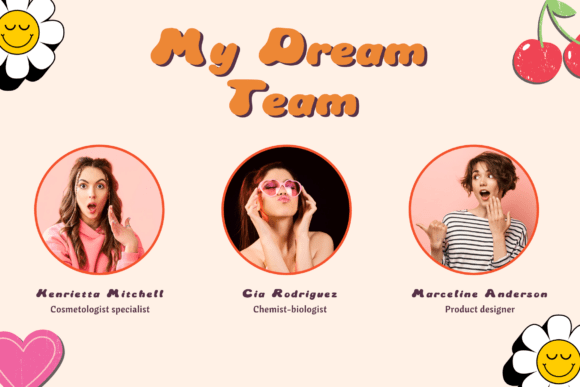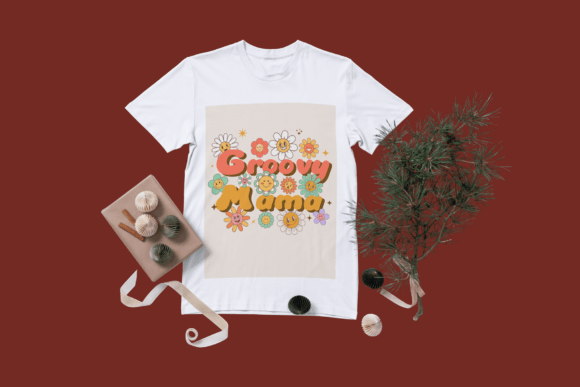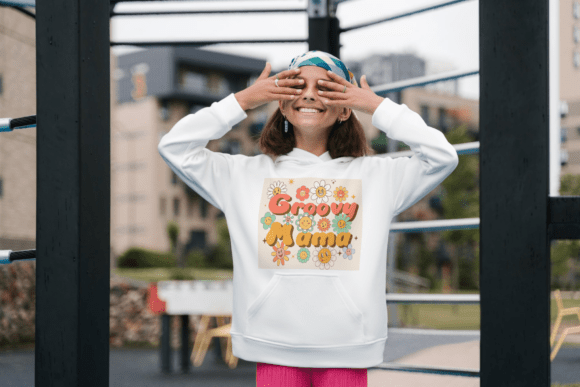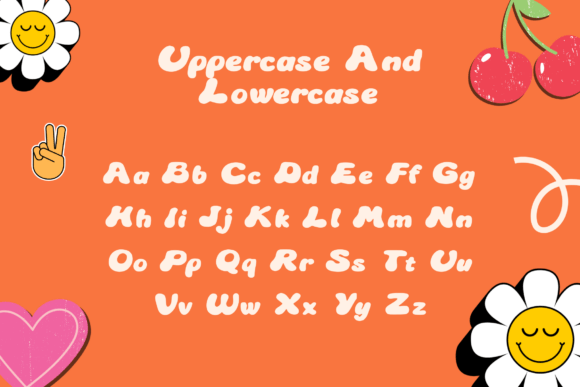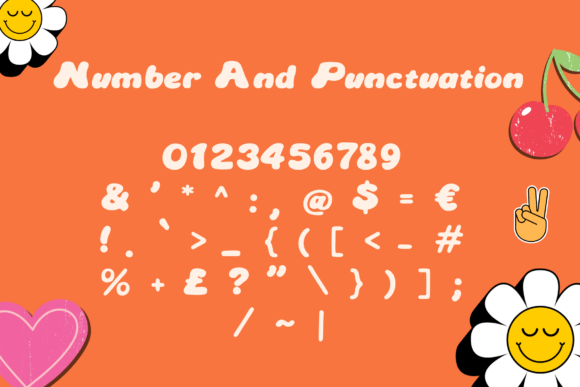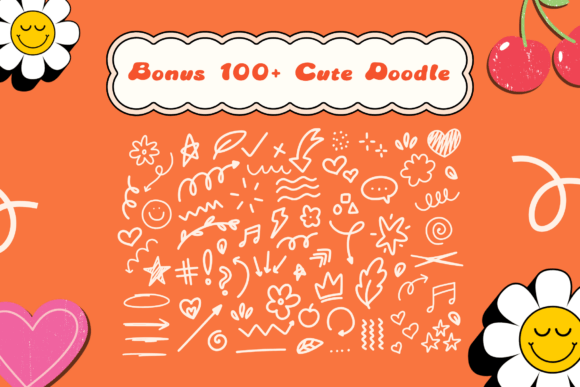
Bloobzilla Groovy Font: Bringing Retro Happiness to Your Designs
Are you looking for a font that can add a touch of retro happiness and playful energy to your designs? Look no further than Bloobzilla Groovy, a bold, bubbly, and cheerful display font that’s perfect for a wide range of creative projects. With its thick rounded letterforms, soft organic curves, and hand-drawn groovy style, this font is sure to capture the warm vintage 70s vibe with a modern cute twist.
The Perfect Font for Playful Designs
Bloobzilla Groovy is designed to bring a friendly and lovable personality to your designs. Its smooth, chunky shapes and bold structure ensure strong readability, making it perfect for a variety of applications, including t-shirt designs, hoodies, stickers, kids branding, nursery decor, posters, social media graphics, packaging, quotes, merchandise, logos, and playful headlines.
What Makes Bloobzilla Groovy Special?
So, what sets Bloobzilla Groovy apart from other fonts? Here are just a few features that make it a standout:
- Full uppercase and lowercase letters: Bloobzilla Groovy includes a full range of letters, allowing you to create a wide range of designs and compositions.
- Numbers and punctuation: In addition to letters, this font also includes numbers and punctuation, making it a versatile choice for a variety of design projects.
- Bonus 100+ cute doodles: To help you create expressive and eye-catching compositions, Bloobzilla Groovy includes a bonus 100+ cute doodles. These doodles can be used to add a touch of whimsy and personality to your designs.
Perfect for Retro-Inspired Typography Projects
Bloobzilla Groovy is perfect for retro-inspired typography projects that need charm, fun, and bold character. With its hand-drawn groovy style and vintage 70s vibe, this font is sure to add a touch of nostalgia and playfulness to your designs. Whether you’re creating a logo, poster, or social media graphic, Bloobzilla Groovy is a great choice.
Tips for Using Bloobzilla Groovy
Here are a few tips for getting the most out of Bloobzilla Groovy:
- Experiment with colors: Bloobzilla Groovy is a bold and playful font, so don’t be afraid to experiment with bright and bold colors. This font looks great in a variety of colors, from pastel hues to bold brights.
- Mix and match with other fonts: While Bloobzilla Groovy is a bold and playful font, it can also be paired with other fonts to create a unique and interesting look. Try pairing it with a clean sans-serif font for a fun and playful contrast.
- Use it for headlines and titles: Bloobzilla Groovy is a display font, so it’s perfect for headlines and titles. Use it to add a touch of personality and whimsy to your designs.
In conclusion, Bloobzilla Groovy is a fun and playful font that’s perfect for designers and crafters looking to add a touch of retro happiness to their designs. With its bold and bubbly personality, smooth chunky shapes, and hand-drawn groovy style, this font is sure to capture the warm vintage 70s vibe with a modern cute twist. Whether you’re creating a logo, poster, or social media graphic, Bloobzilla Groovy is a great choice.
Add Color, Joy, and Groovy Personality to Your Designs
So why settle for a boring and generic font when you can add color, joy, and groovy personality to your designs with Bloobzilla Groovy? With its versatility, playfulness, and charm, this font is sure to bring a smile to your face and a touch of whimsy to your designs. Try Bloobzilla Groovy today and see the difference it can make!